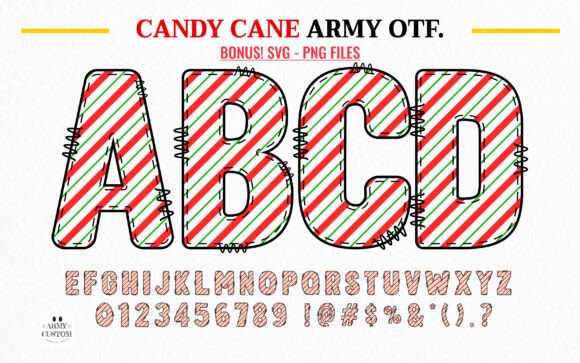
Introducing Candy Cane Christmas Font: A Festive Infusion of Color
Are you looking for a font that embodies the vibrant, festive spirit of the holiday season? Look no further than the Candy Cane Army Font, now rebranded as Candy Cane Christmas Font! This delightful font is designed to invigorate your artistic toolbox and elevate your designs with a jubilant sense of holiday cheer. In this article, we’ll explore the features and benefits of Candy Cane Christmas Font, and how you can use it to capture the essence of the season in your designs.
A Font that Embodies Holiday Cheer
Candy Cane Christmas Font is more than just a font – it’s an experience. It’s a way to evoke the warmth and merriment of the holiday season in your designs, and to create a sense of joy and festivity that will leave a lasting impression on your audience. With its vibrant, colorful design, this font is perfect for anyone looking to add a touch of holiday magic to their projects.
Compatibility and Features
Candy Cane Christmas Font comes in two versions: a black version and a color version. The black version is compatible with Cricut Design Space and other cutting machines, making it perfect for crafters and designers who use these tools. The color version, on the other hand, is compatible with certain design programs, including PhotoShop, Illustrator, Silhouette, and Inkscape.
Using Candy Cane Christmas Font in Your Designs
So, how can you use Candy Cane Christmas Font in your designs? The possibilities are endless! Here are a few ideas to get you started:
- Create festive holiday cards and invitations that will leave a lasting impression on your friends and family.
- Design eye-catching holiday-themed graphics and social media posts that will help you stand out from the crowd.
- Make personalized holiday gifts, such as customized ornaments, decorations, and more.
- Add a touch of holiday cheer to your website or blog with festive headers and typography.
Tips and Tricks for Working with Candy Cane Christmas Font
Here are a few tips and tricks to help you get the most out of Candy Cane Christmas Font:
- Experiment with different colors and design combinations to find the perfect look for your project.
- Use the font in combination with other festive design elements, such as holly, snowflakes, and more.
- Don’t be afraid to get creative and try new things – the beauty of Candy Cane Christmas Font lies in its versatility and flexibility.